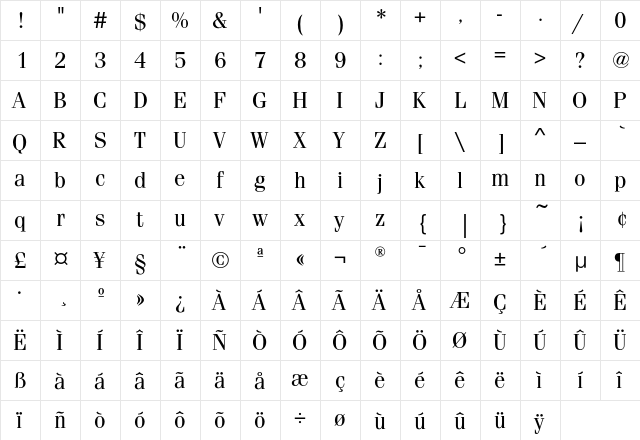
FeniceEF-Regular Regular
Design Context for FeniceEF-Regular Typeface
FeniceEF-Regular takes a measured approach to typography — its balanced proportions and neutral character make it a reliable workhorse for both digital and print work.